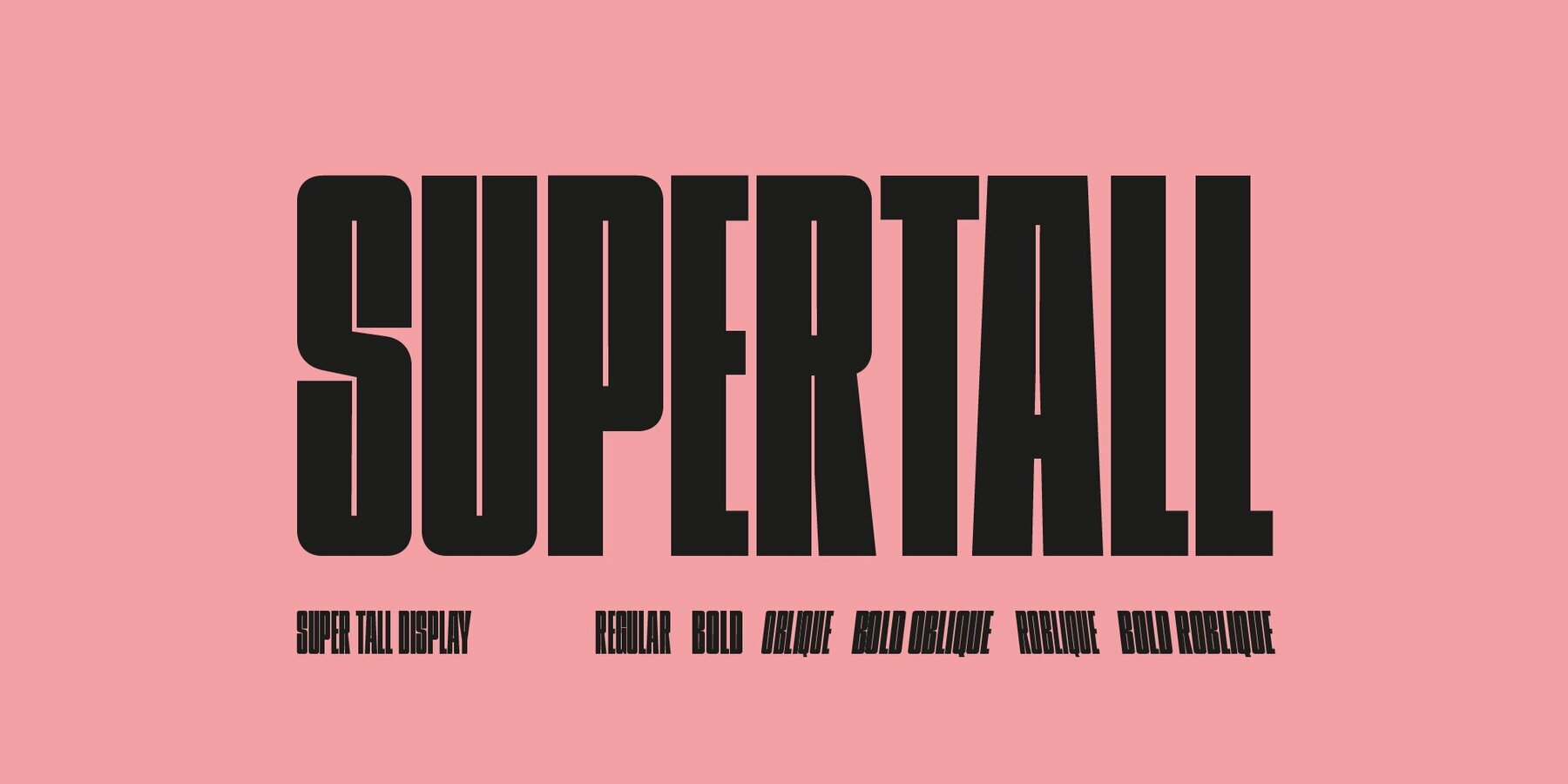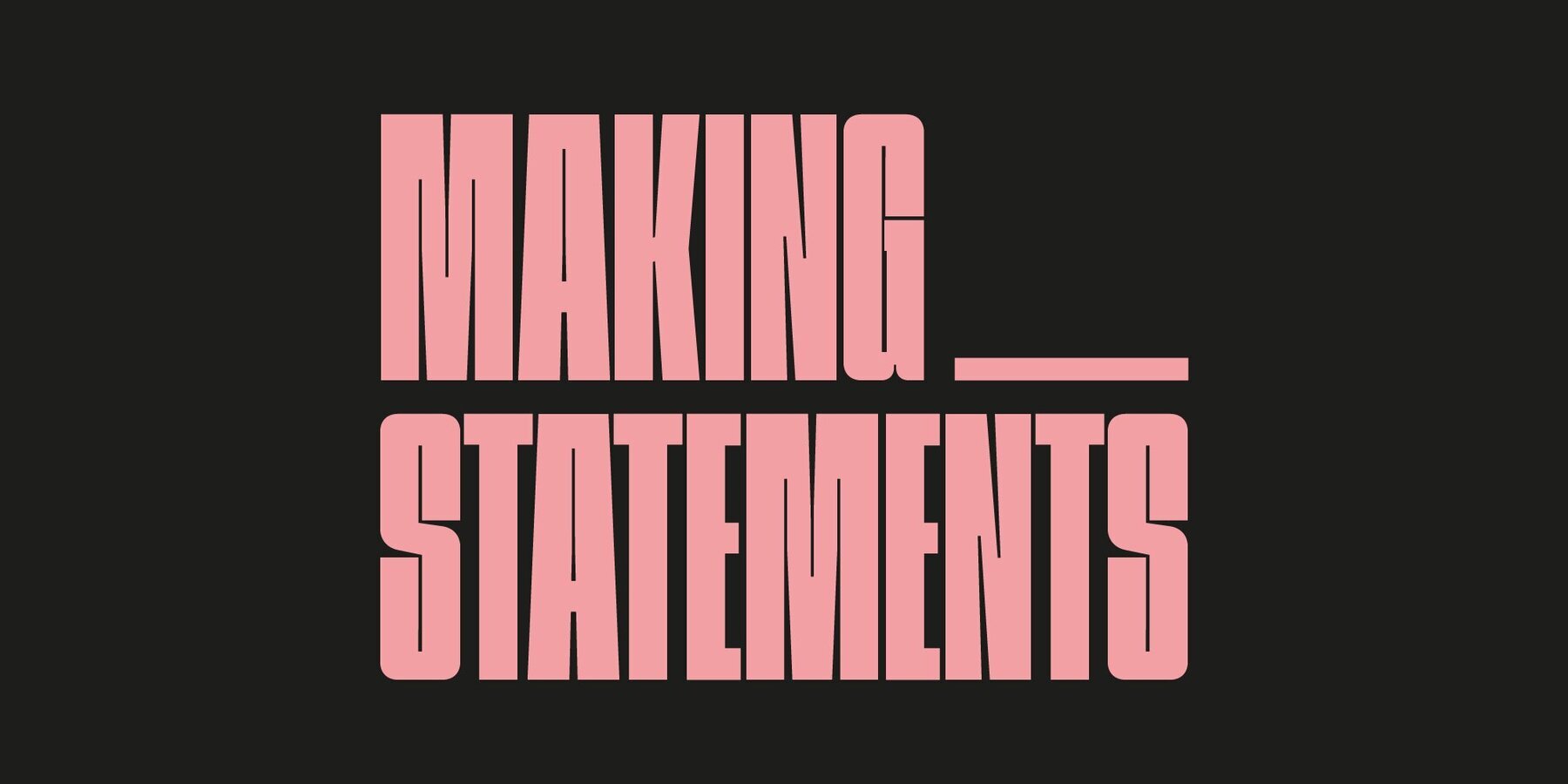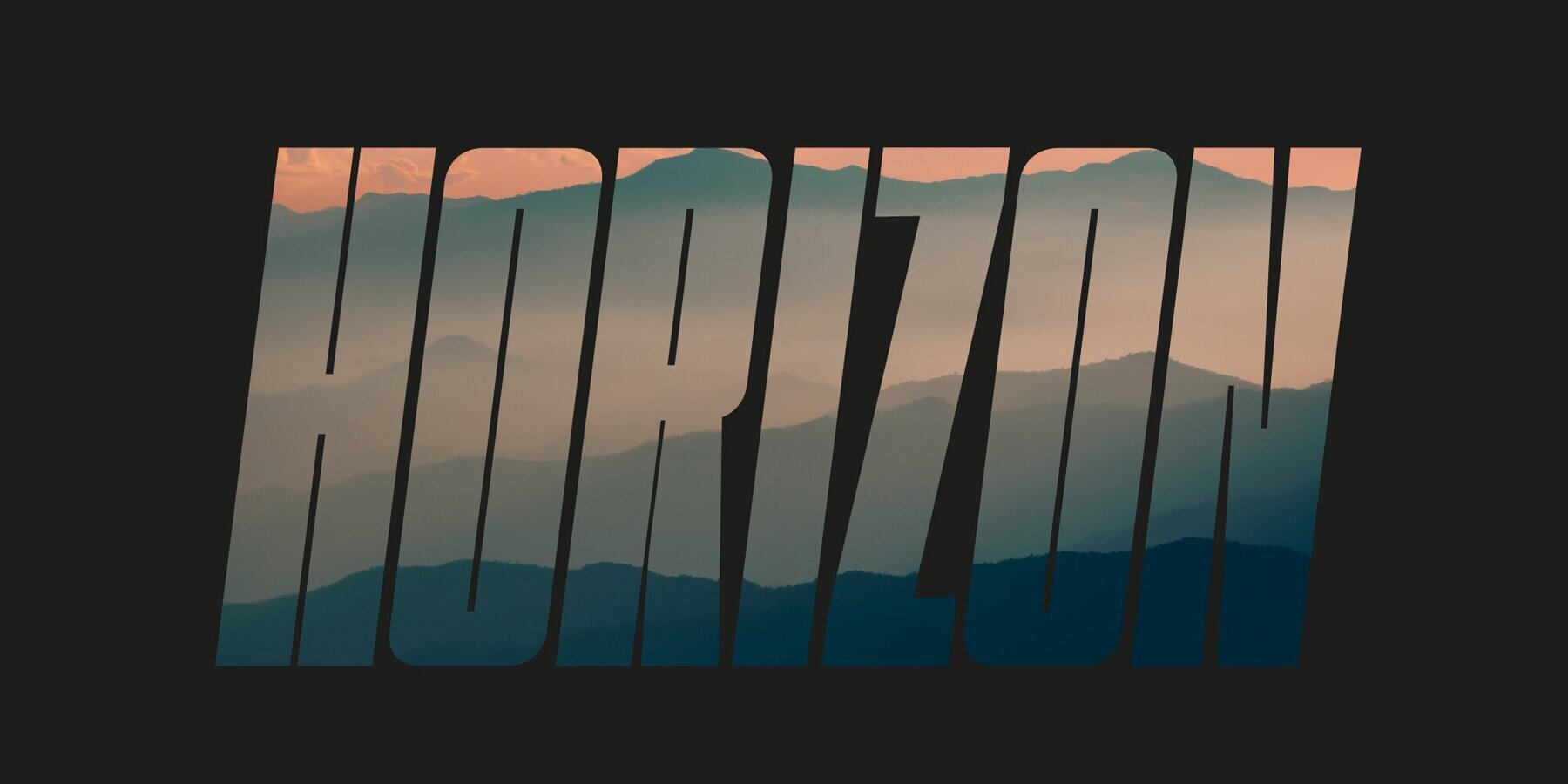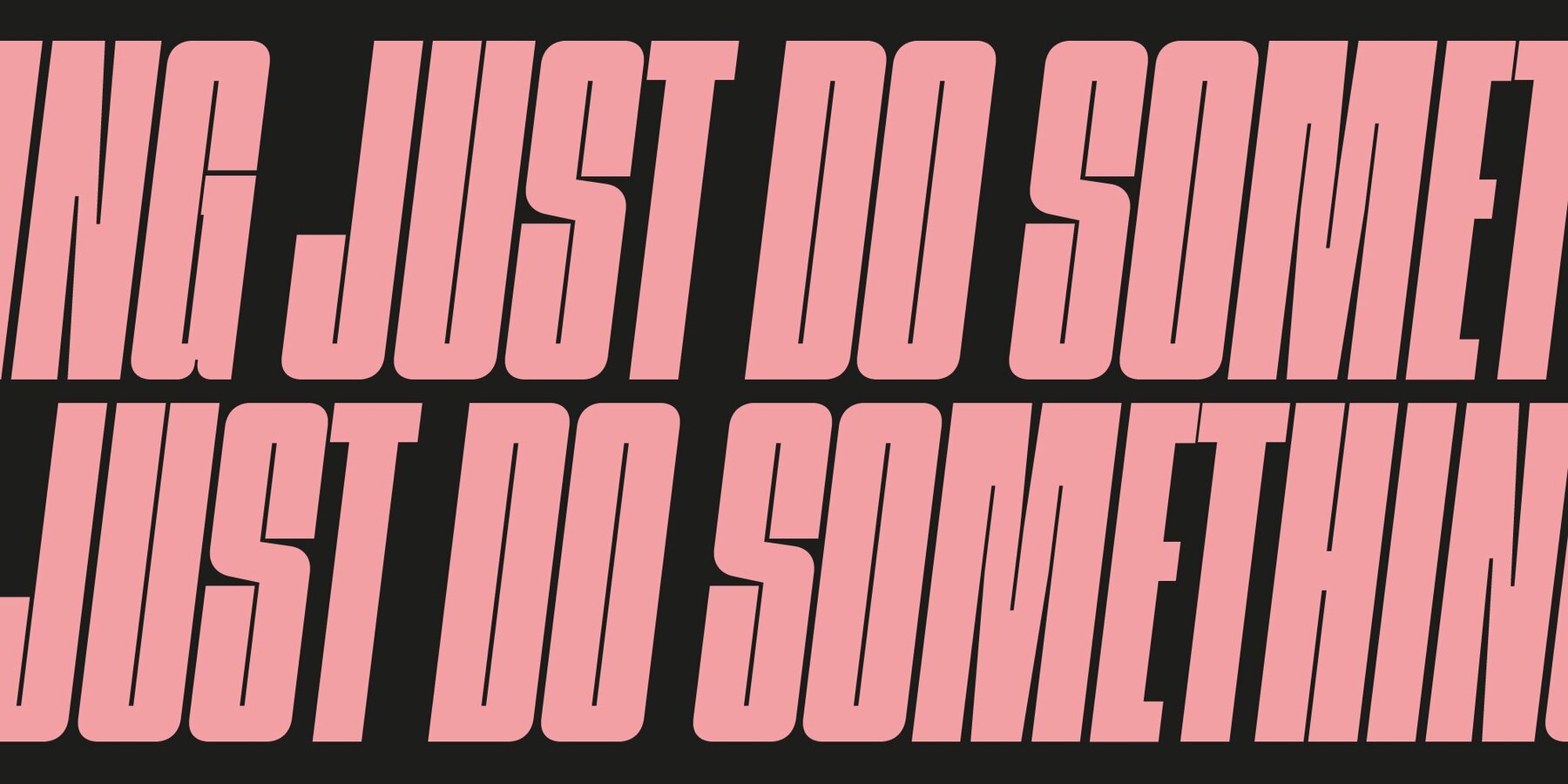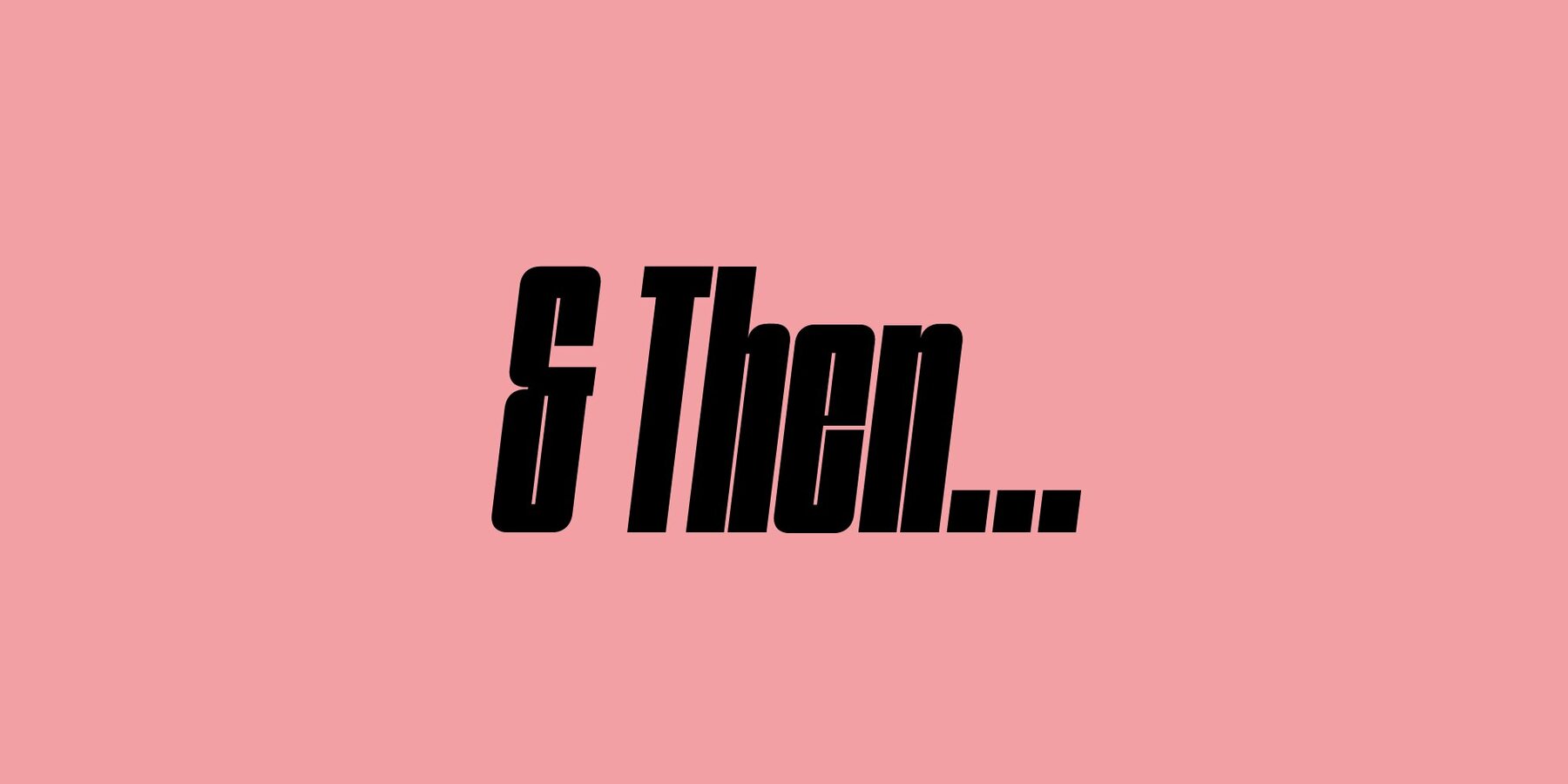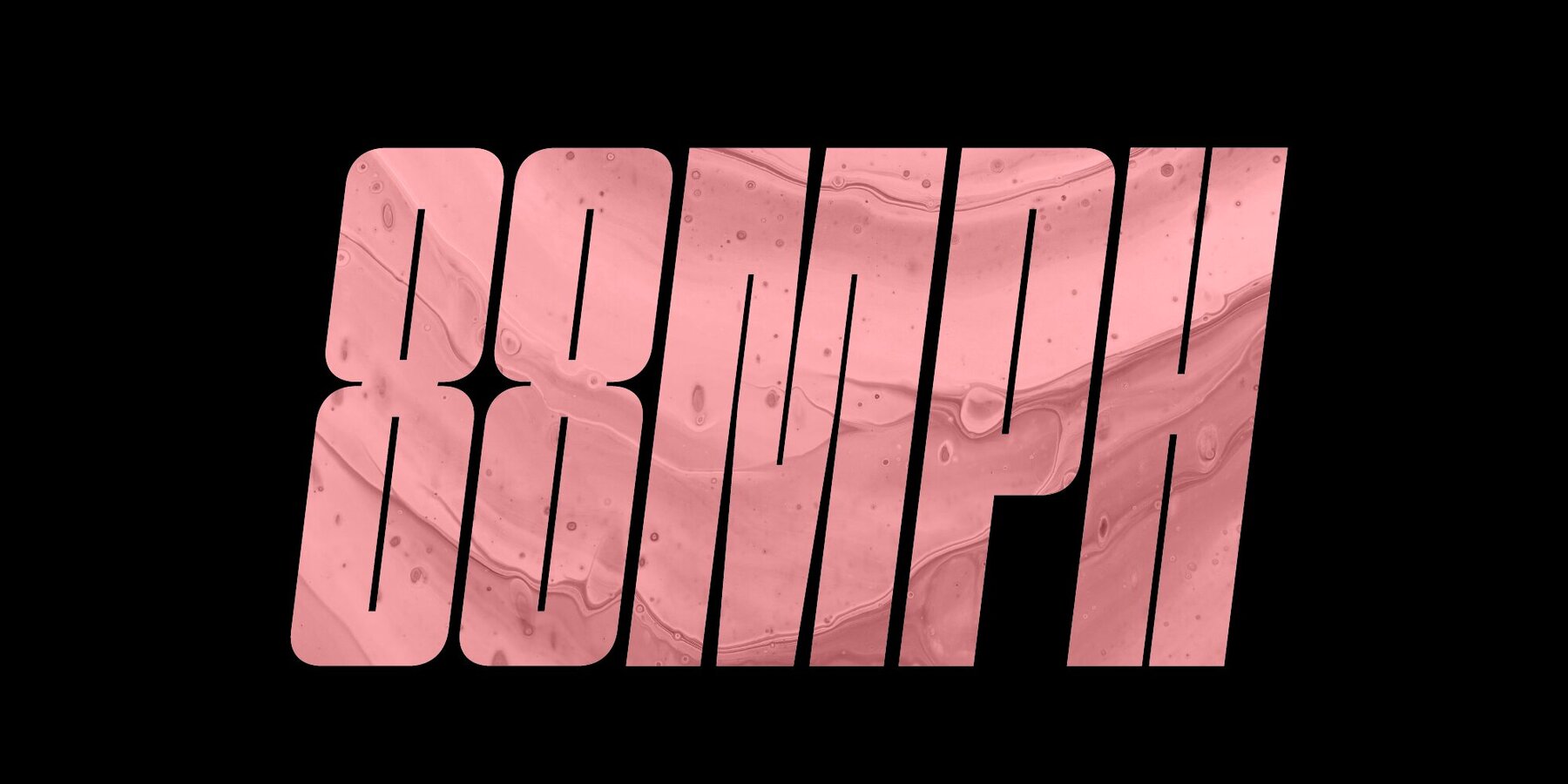
Supertall Font
Supertall, ultra condensed and extra large. Supertall is a massive statement display font designed to command a page by filling a lot of space. Taking inspiration from hard-hitting movie titles, Supertall brings some 80s video game vibes with a modern touch. The Supertall type family features Regular and bold weights with obliques and reverse obliques. Add a sense of speed and movement with the Supertall Oblique and Supertall Reverse Oblique styles.